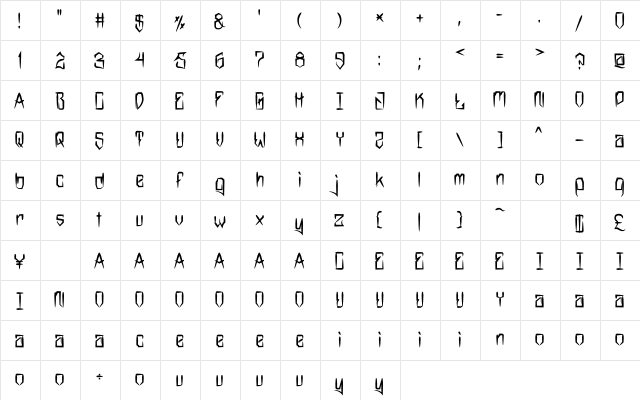
MarkerNo3HUN Bold
| Foundry | HighUpNorth |
| Designer | HighUpNorth |
Design Context for MarkerNo3HUN Typeface
MarkerNo3HUN is a composed and adaptable typeface that performs quietly and consistently across a wide range of design contexts. Its bold stroke weight gives it real presence on the page.